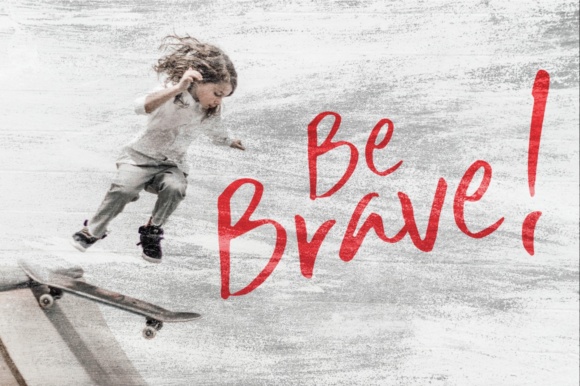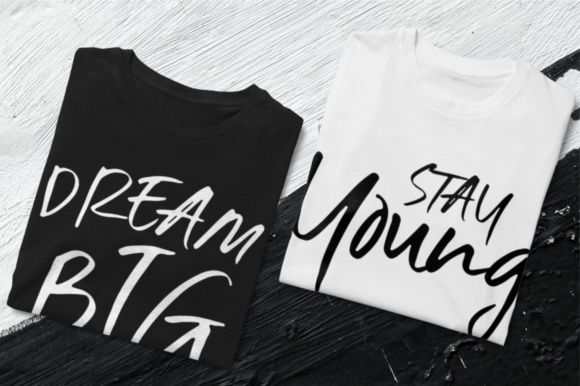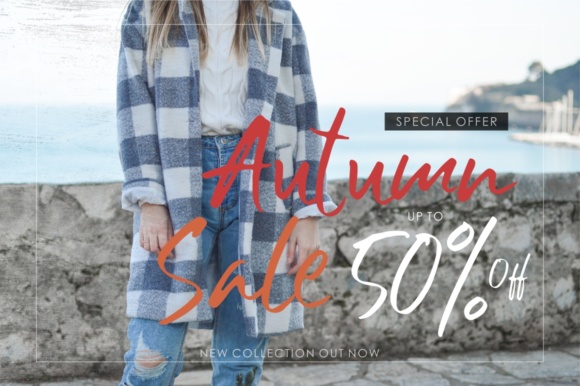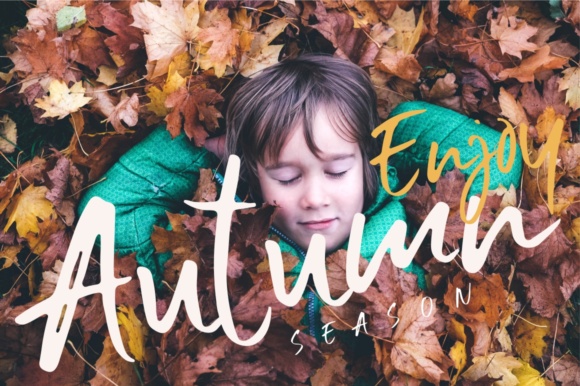
About Six Away Font
The Six Away is a handmade brush font with a shape that is not monotonous. It has its own style and can be assembled into a natural word. Six Away is made with a quick stroke of the brush pen, so that it looks original and can be used for all your project needs. Each glyph has its own uniqueness and when meeting with others will provide a dynamic and pleasing proximity
So, with its unique and natural strokes, Six Away can’t wait to give its touch to all your design projects such as watermarks, quotes, wedding invitations, posters, wedding, branding, logos, fashion, apparel, letters, invitation, stationery, product designs (like drinks and food), etc.
Besides that, Six Away also has some ligatures that give a surprise when you type the same lowercase glyph twice.